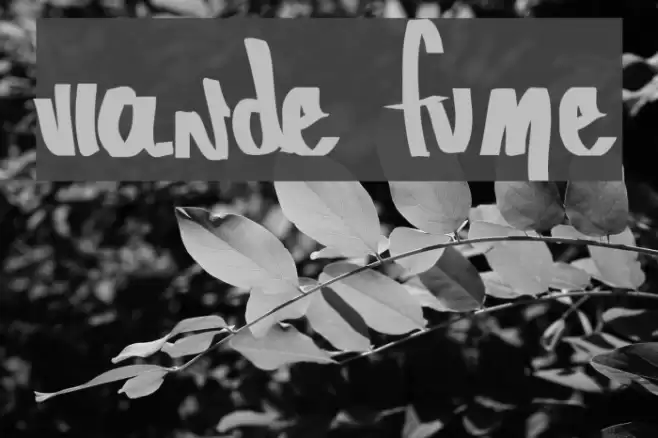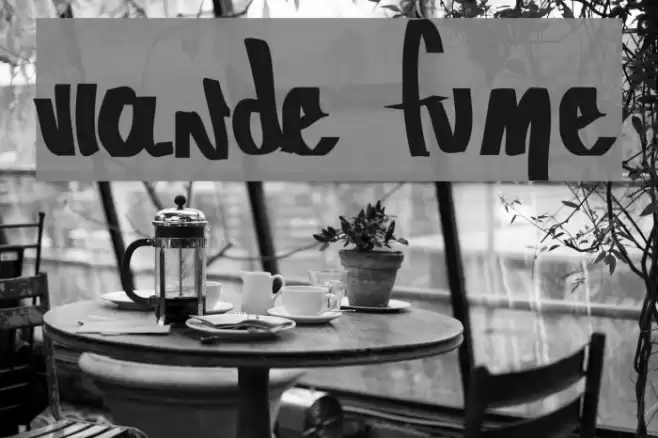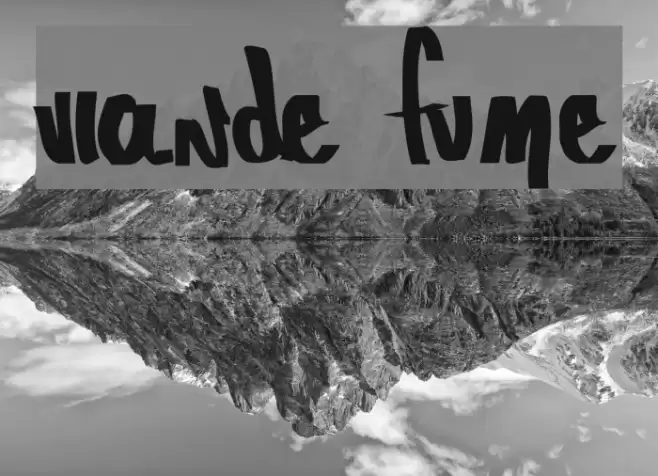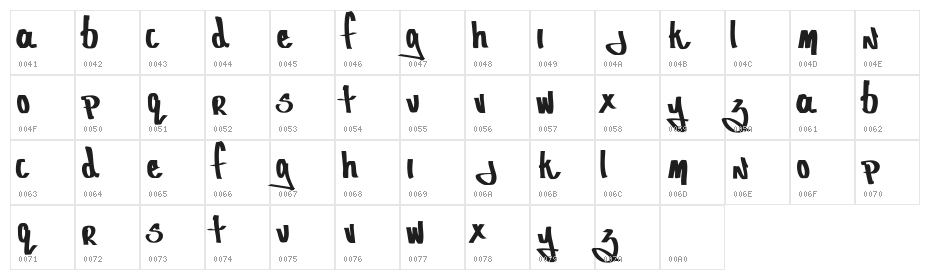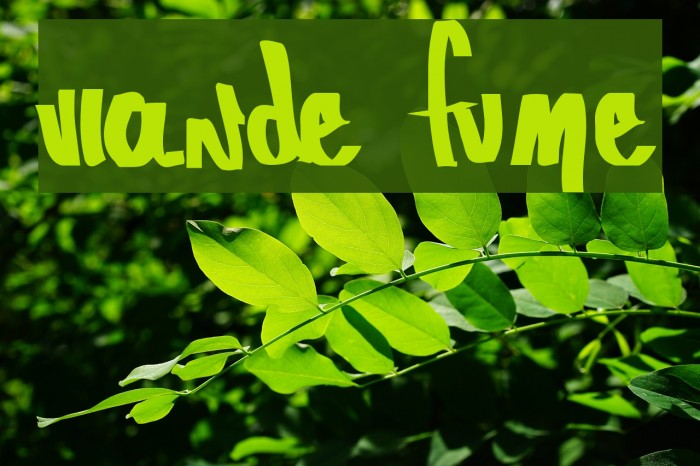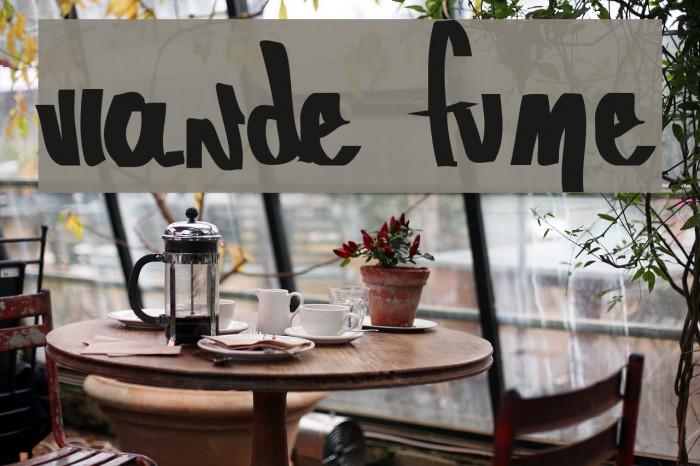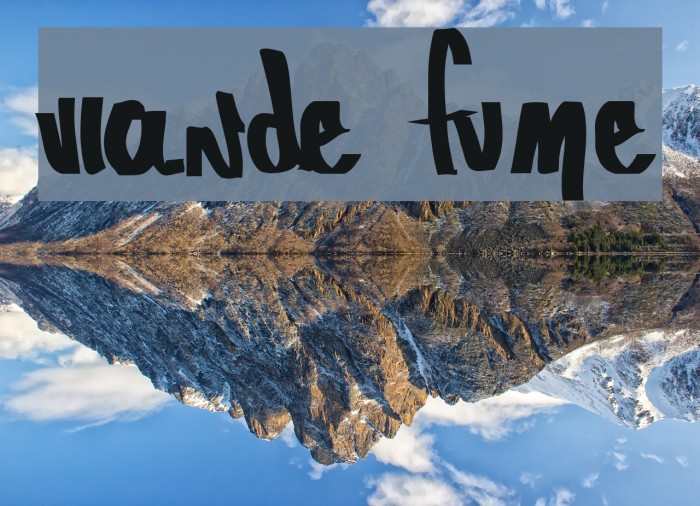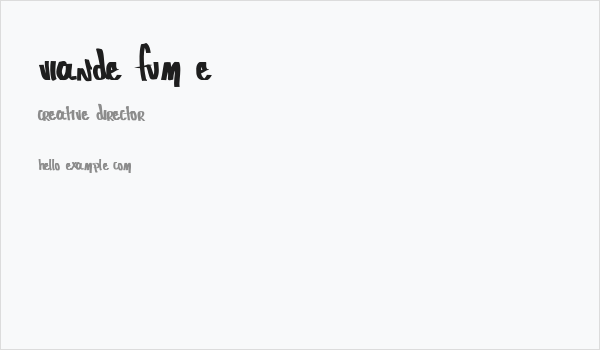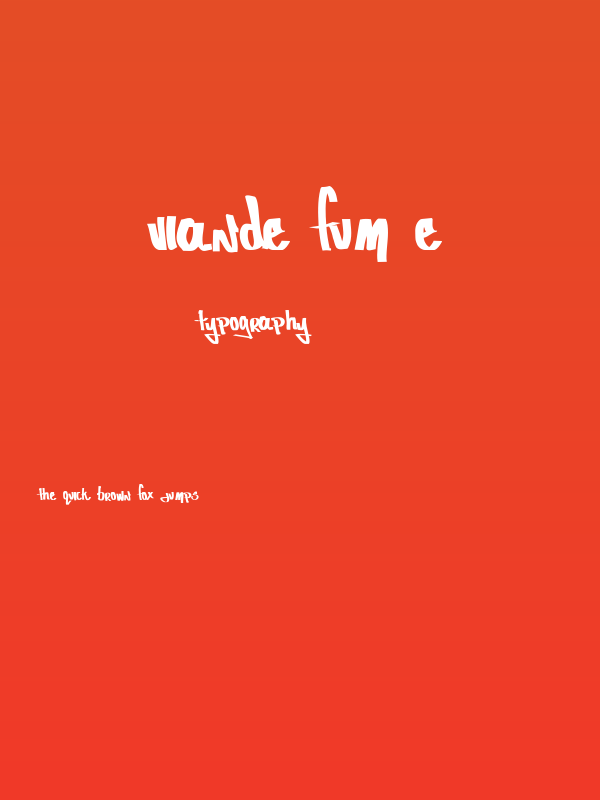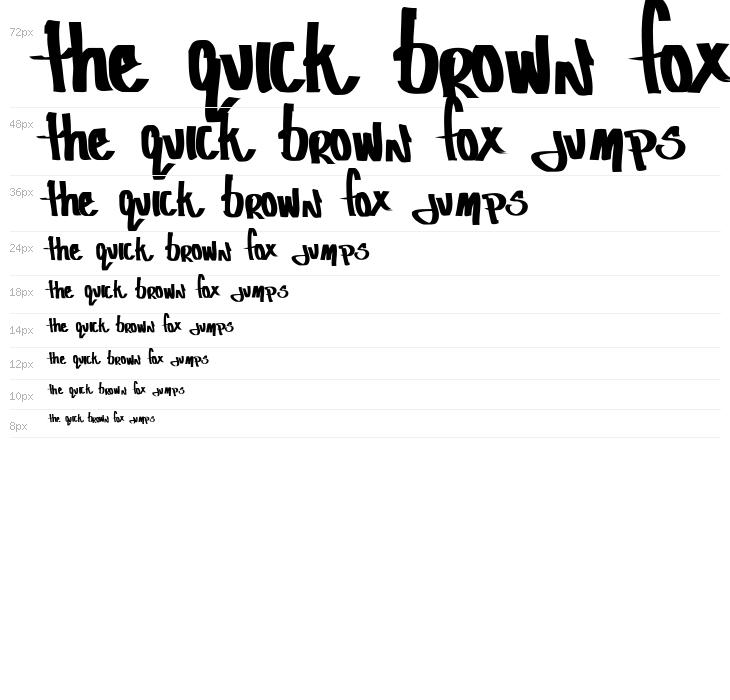
Viande Fumée Font
Viande Fumée Description
This font exudes a bold and expressive style, characterized by its thick, brush-like strokes and dynamic flow. The letters are crafted with a sense of movement, giving an energetic and artistic feel. The uppercase and lowercase letters maintain a consistent style, with unique flourishes and curves that add personality. The overall appearance is both modern and edgy, making it suitable for creative and impactful designs. The font's distinctive style makes it stand out, capturing attention with its artistic flair.
A bold, expressive font with brush-like strokes and dynamic flow from Handwritten fonts.
- Proposed Projects: Ideal for branding, posters, album covers, and creative projects that require a bold statement.
- Character Spacing: Tight